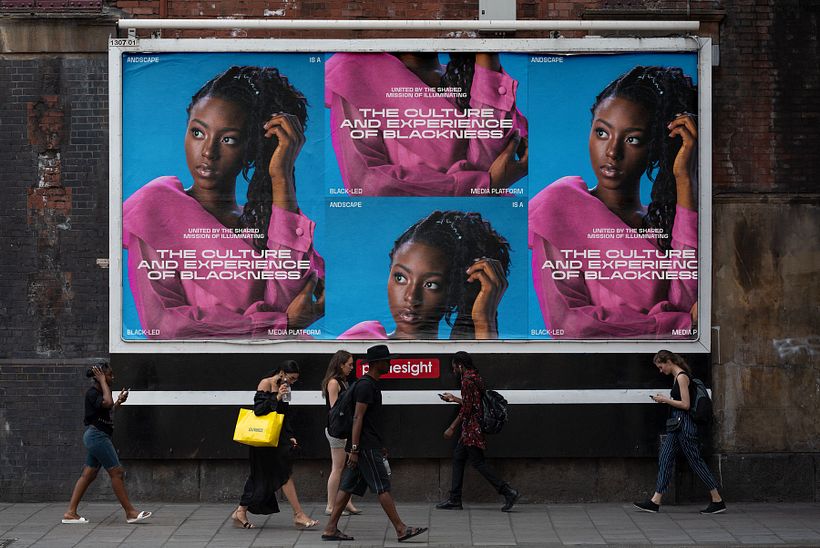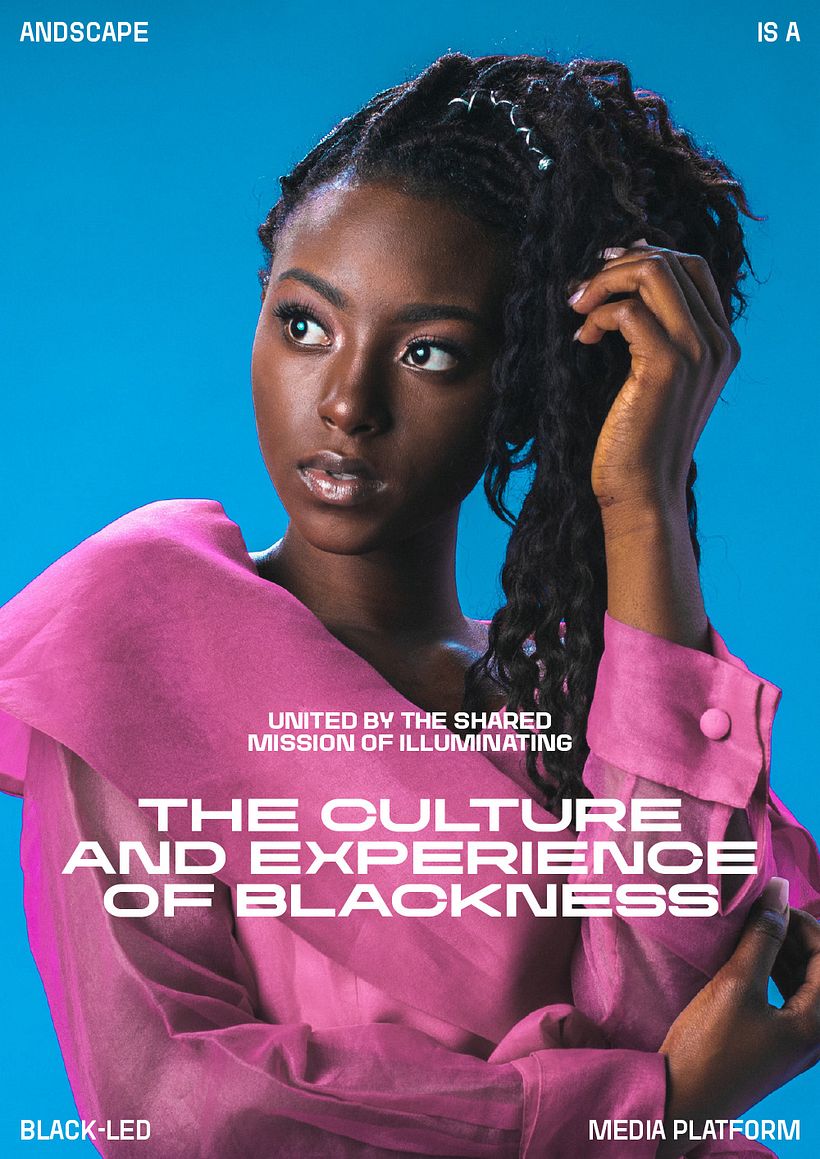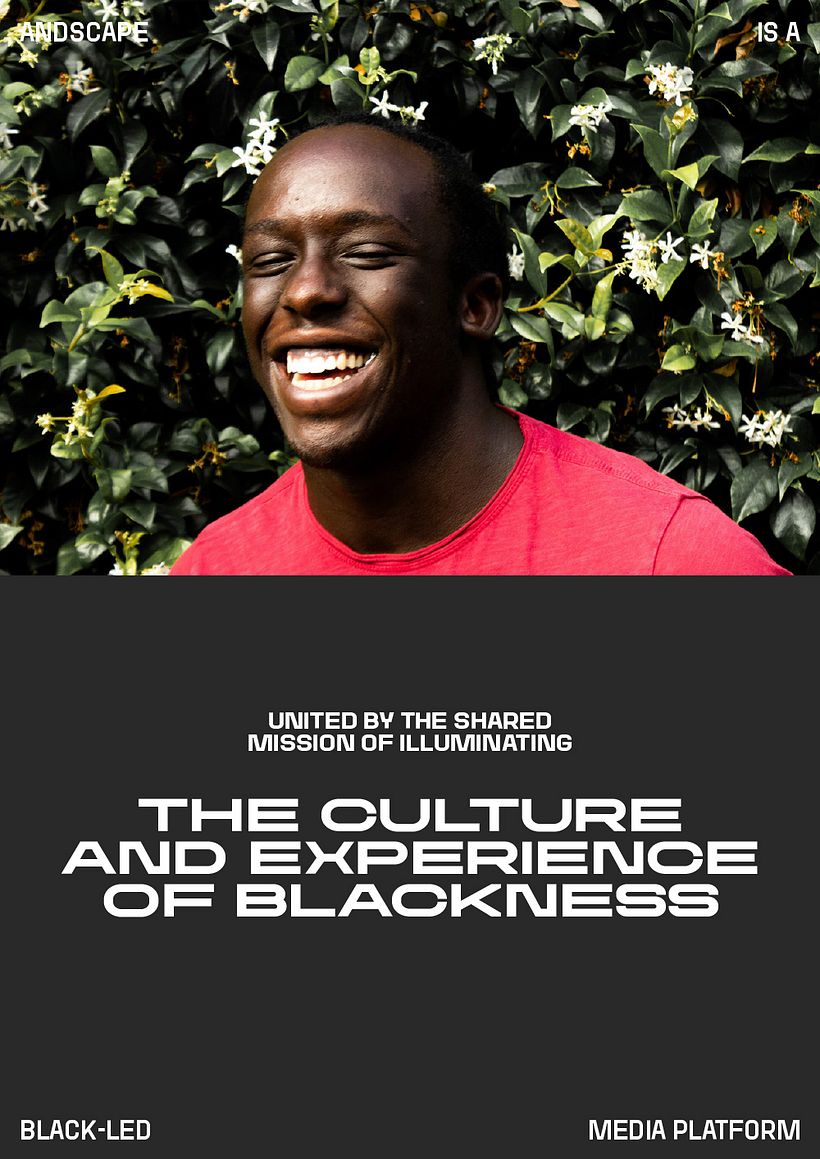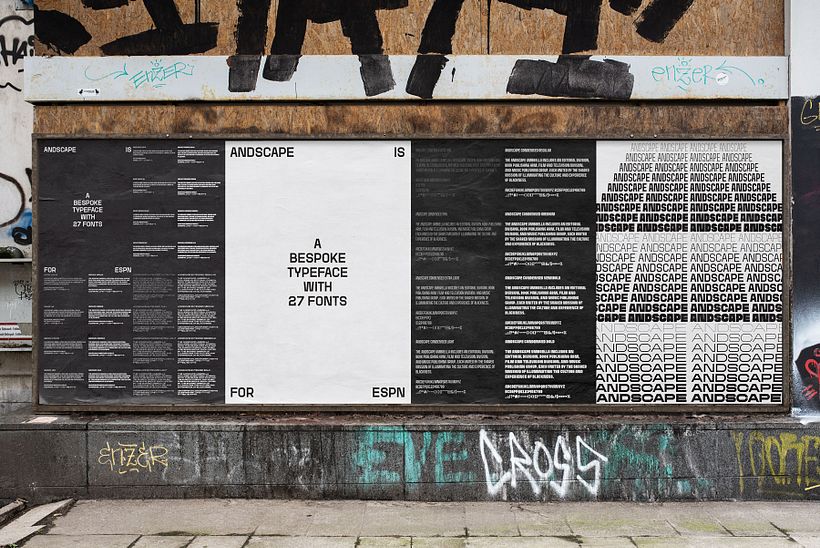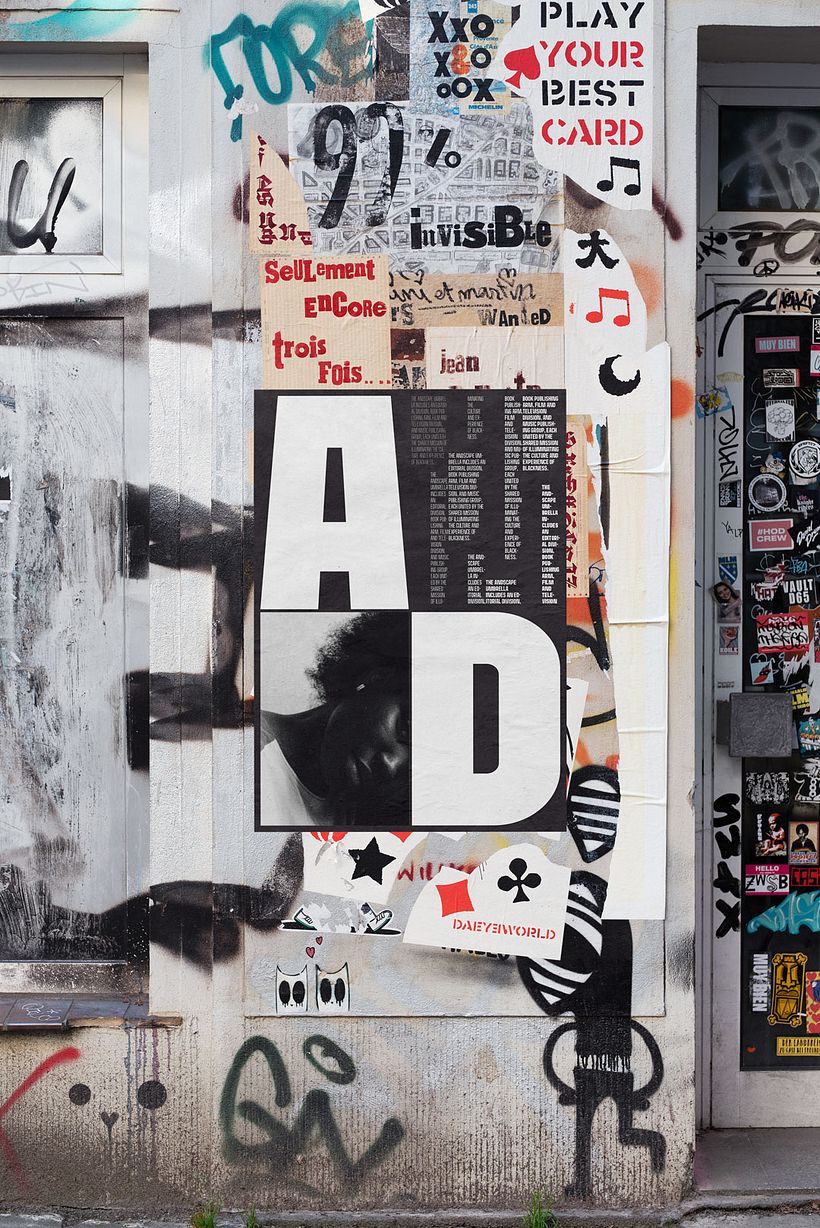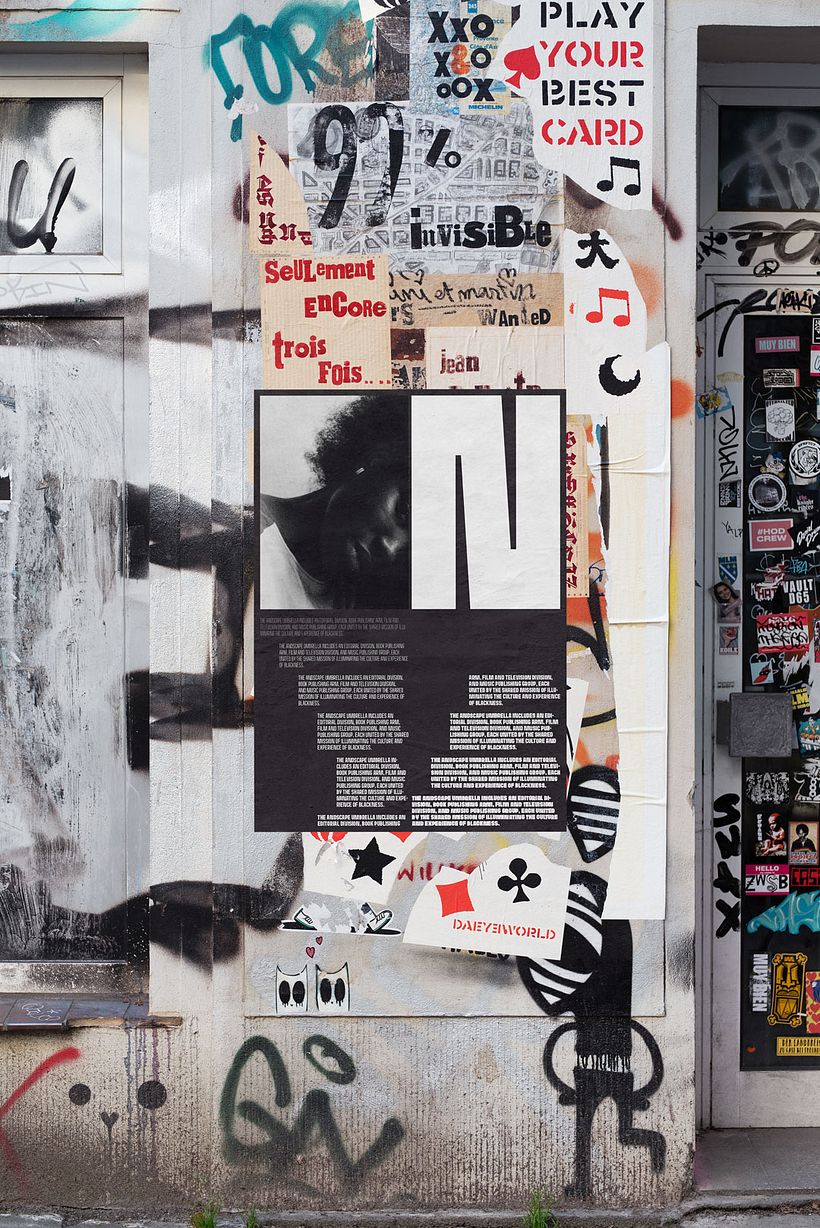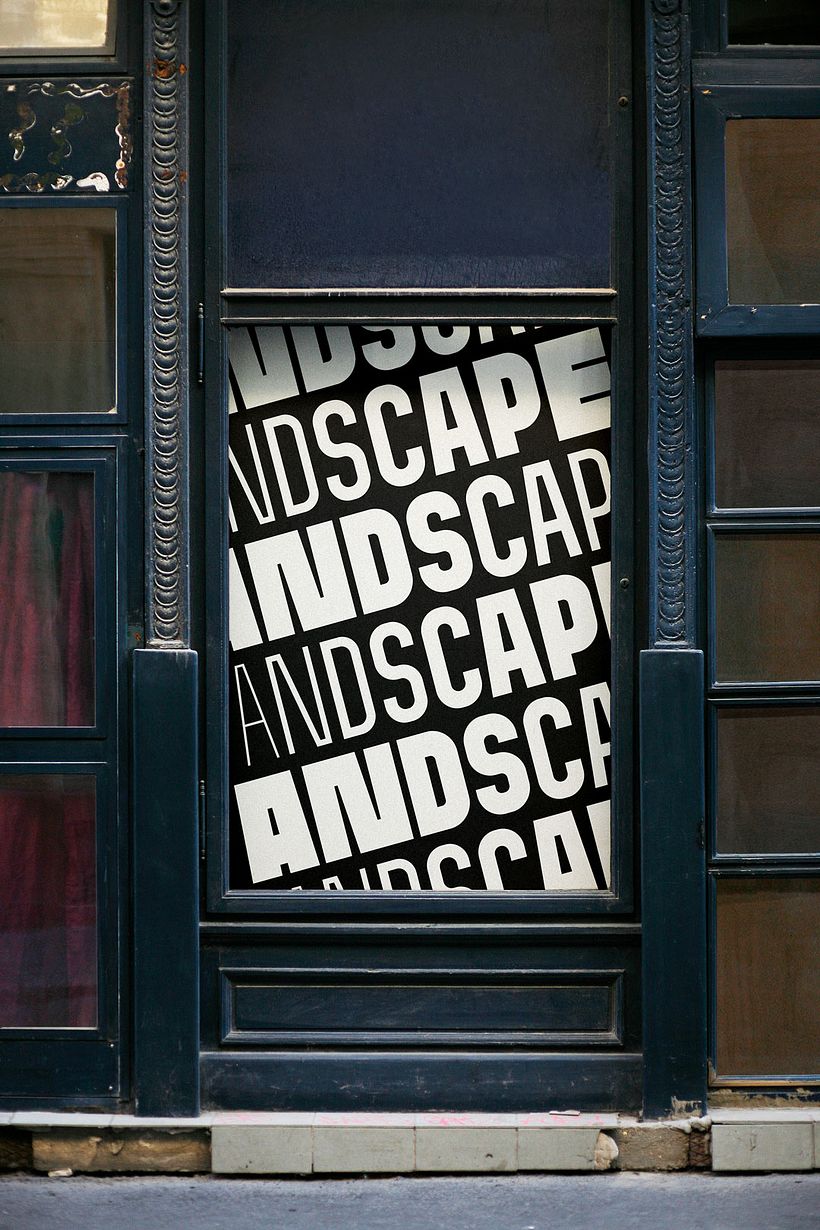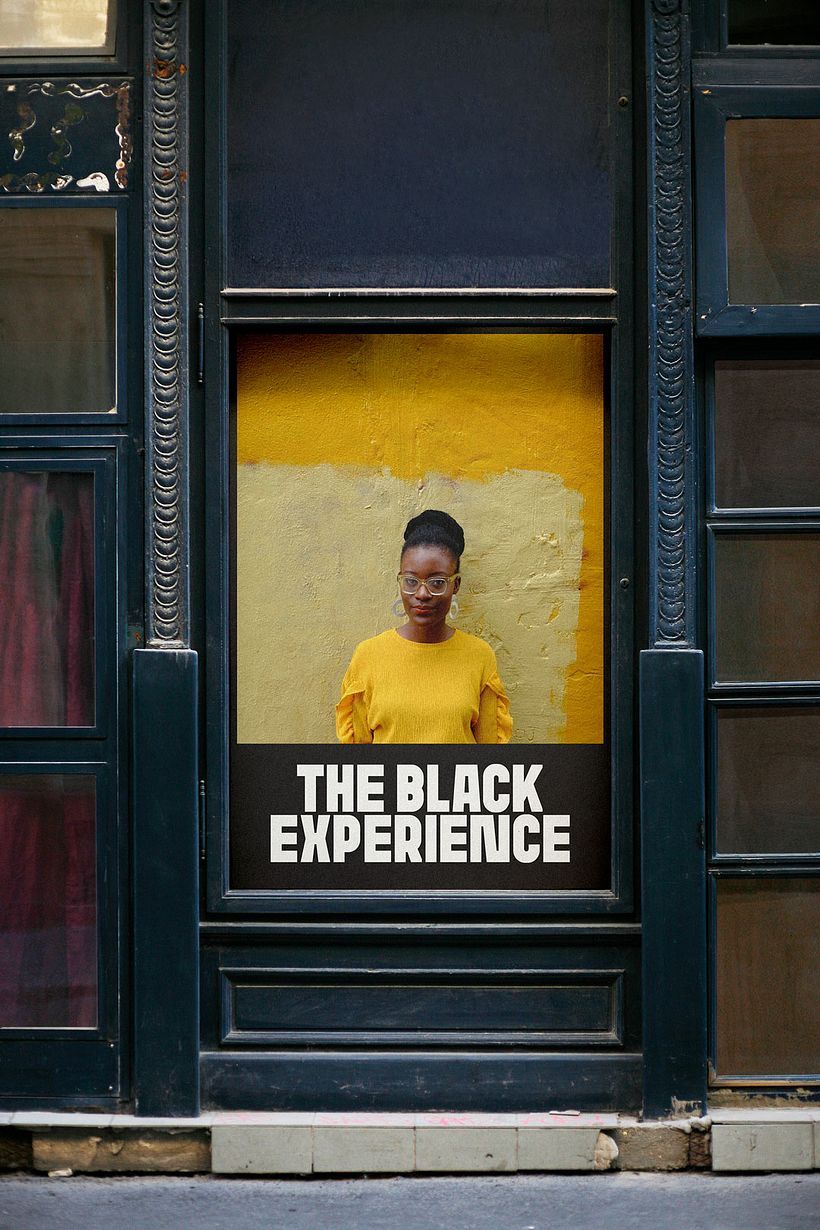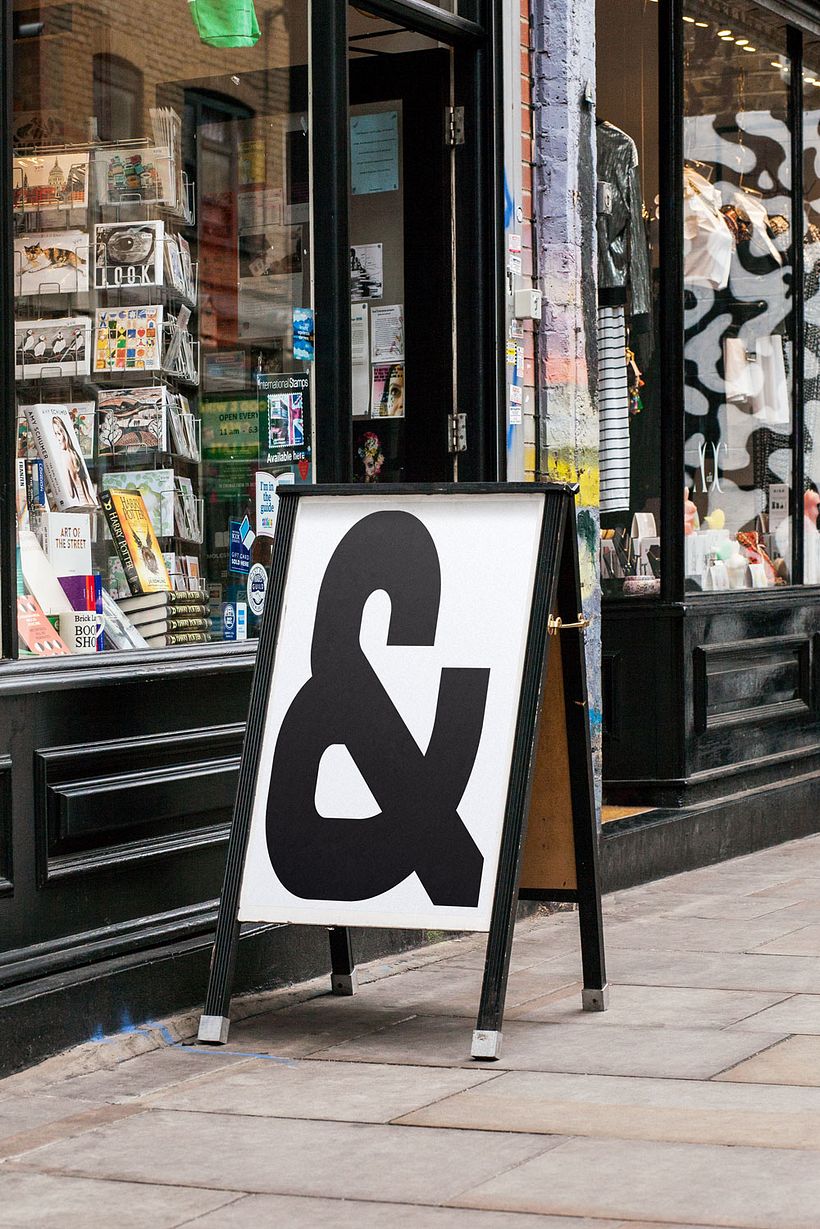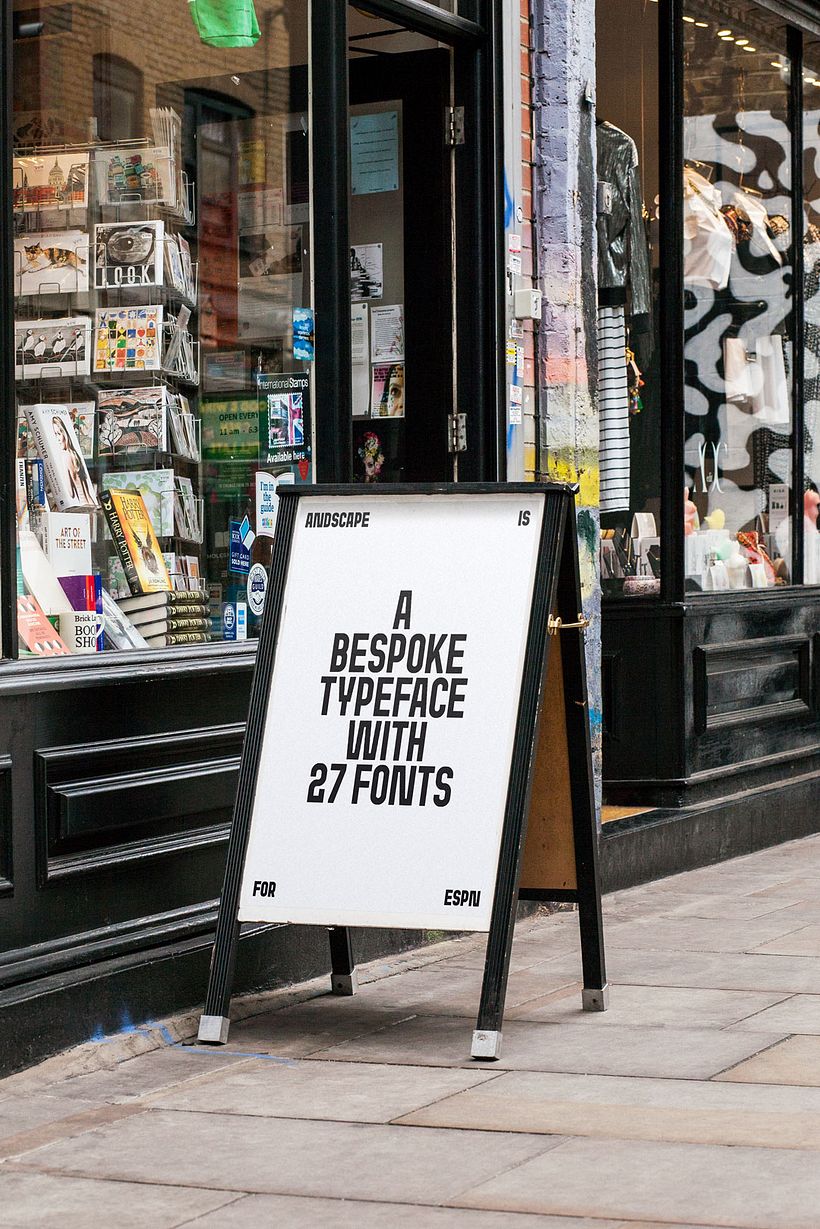
Andscape Typeface
Andscape is a Black-led media platform dedicated to creating, highlighting, and uplifting the diverse stories of Black identity. Magnified by the power and reach of The Walt Disney Co., the Andscape umbrella includes an editorial division, book publishing arm, film and television division, and music publishing group, each united by the shared mission of illuminating the culture and experience of Blackness. TPN was commissioned by ESPN to design an exclusive bespoke typeface with 27 fonts.
TPN was commissioned to design an exclusive bespoke typeface with 27 fonts, ranging from Condensed to Extended and from Ultra Thin to Extra Bold. It is designed to be easy to further stretch horizontally by extending the horizontal lines. Hence triangular and circular shaped letters received horizontal elements which makes stretching without deforming possible.